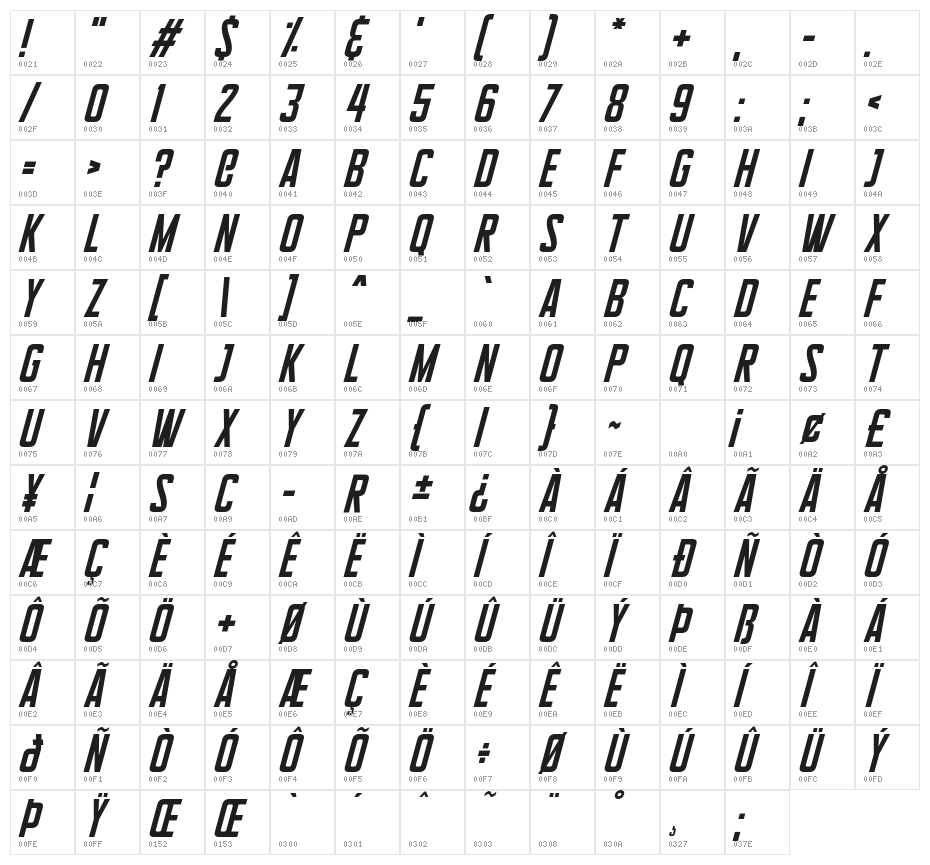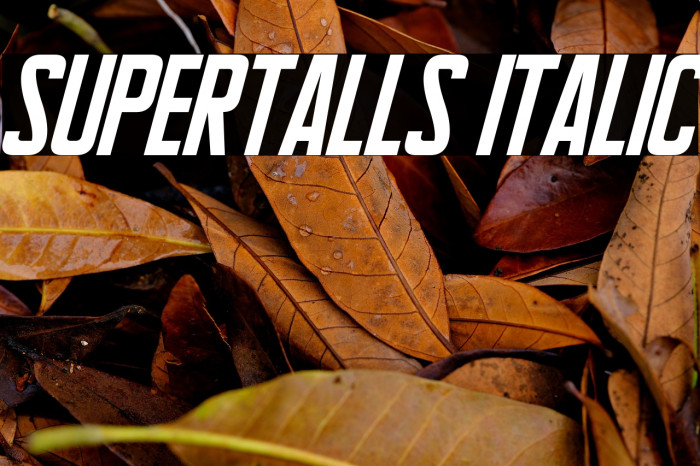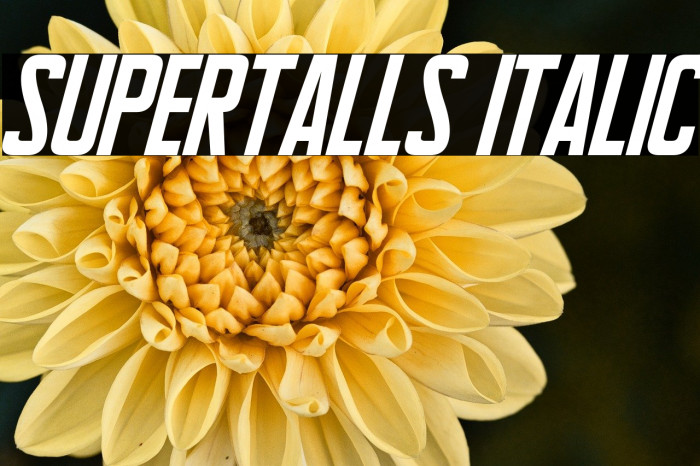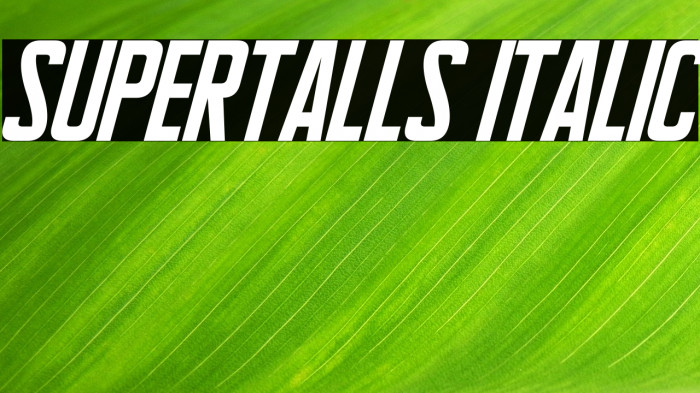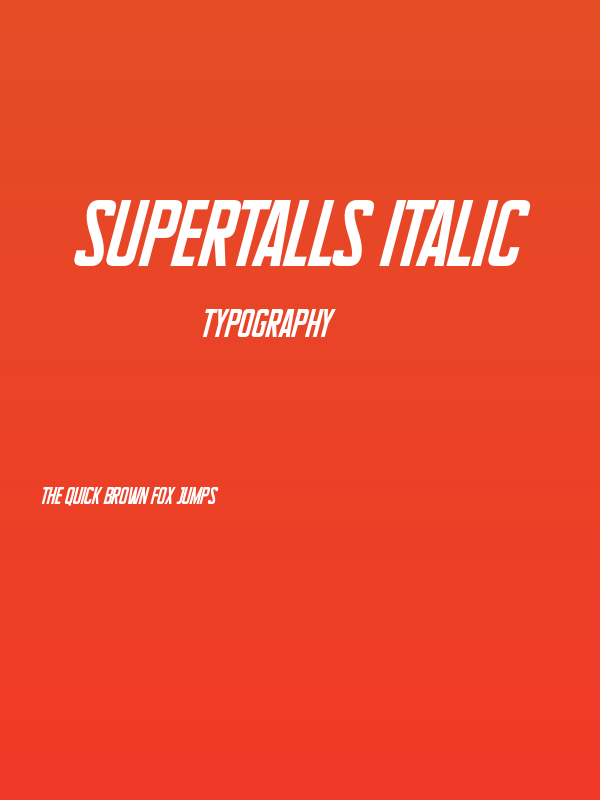
Supertalls Italic Font
Supertalls Italic Description
This font features a bold and dynamic style with a strong italic slant, giving it a sense of movement and urgency. The characters are tall and narrow, emphasizing verticality and creating a sleek, modern appearance. The strokes are consistent in weight, contributing to a uniform and cohesive look across all characters. The uppercase and lowercase letters maintain a similar height, enhancing the font's compact and streamlined design. The numerals and special characters are designed to match the overall aesthetic, ensuring visual harmony. This font is ideal for making a bold statement and capturing attention.